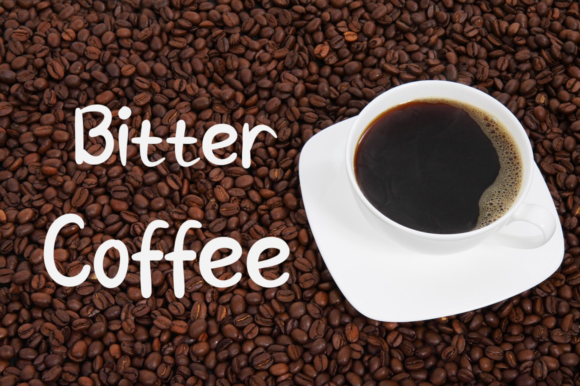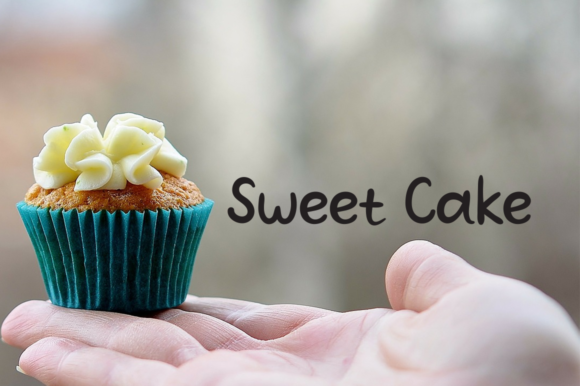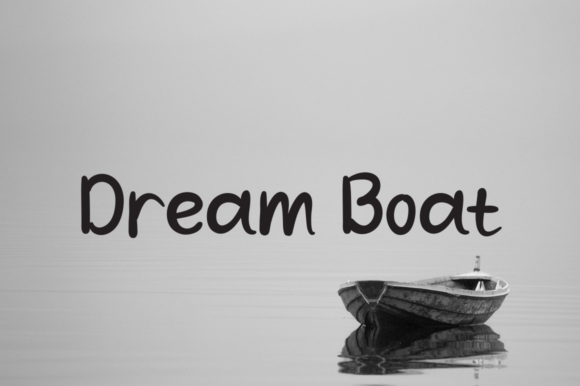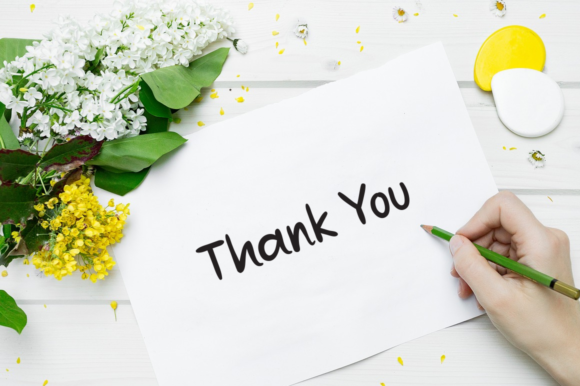
Introduction to Pineapple Honey Font Font
Fonts play a crucial role in design, and the Pineapple Honey Font font is a typeface that brings both character and versatility to any project. Whether you’re working on a branding project, a website, or a print design, the Pineapple Honey Font font offers a unique style that can elevate your work.
Pineapple Honey is a dainty, thin and cursive handwritten font.
This gentle font will look gorgeous on a variety of design ideas It will add a joyful touch to each of your projects.
Key Features of Pineapple Honey Font Font
Why Choose Pineapple Honey Font Font?
The Pineapple Honey Font font is more than just a typeface – it’s a design tool that helps you communicate your message with style and clarity. Its unique character set and versatile design make it suitable for a wide range of applications, from elegant invitations to bold headlines.
With its carefully crafted letterforms and balanced proportions, the Pineapple Honey Font font ensures readability and visual appeal across all mediums.
What makes Pineapple Honey Font font special?
The Pineapple Honey Font font stands out with its unique design, exceptional readability, and versatility across various design applications.